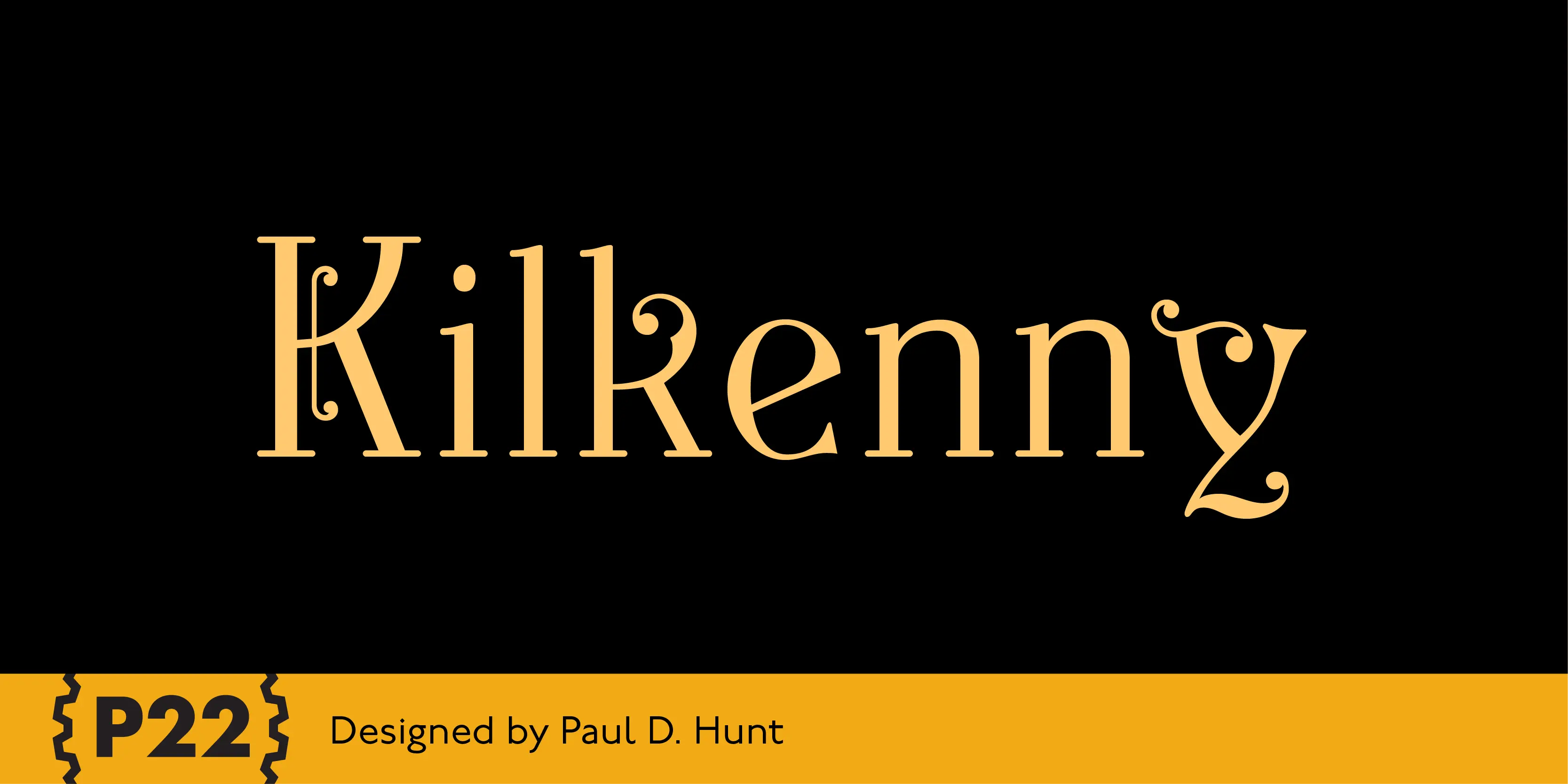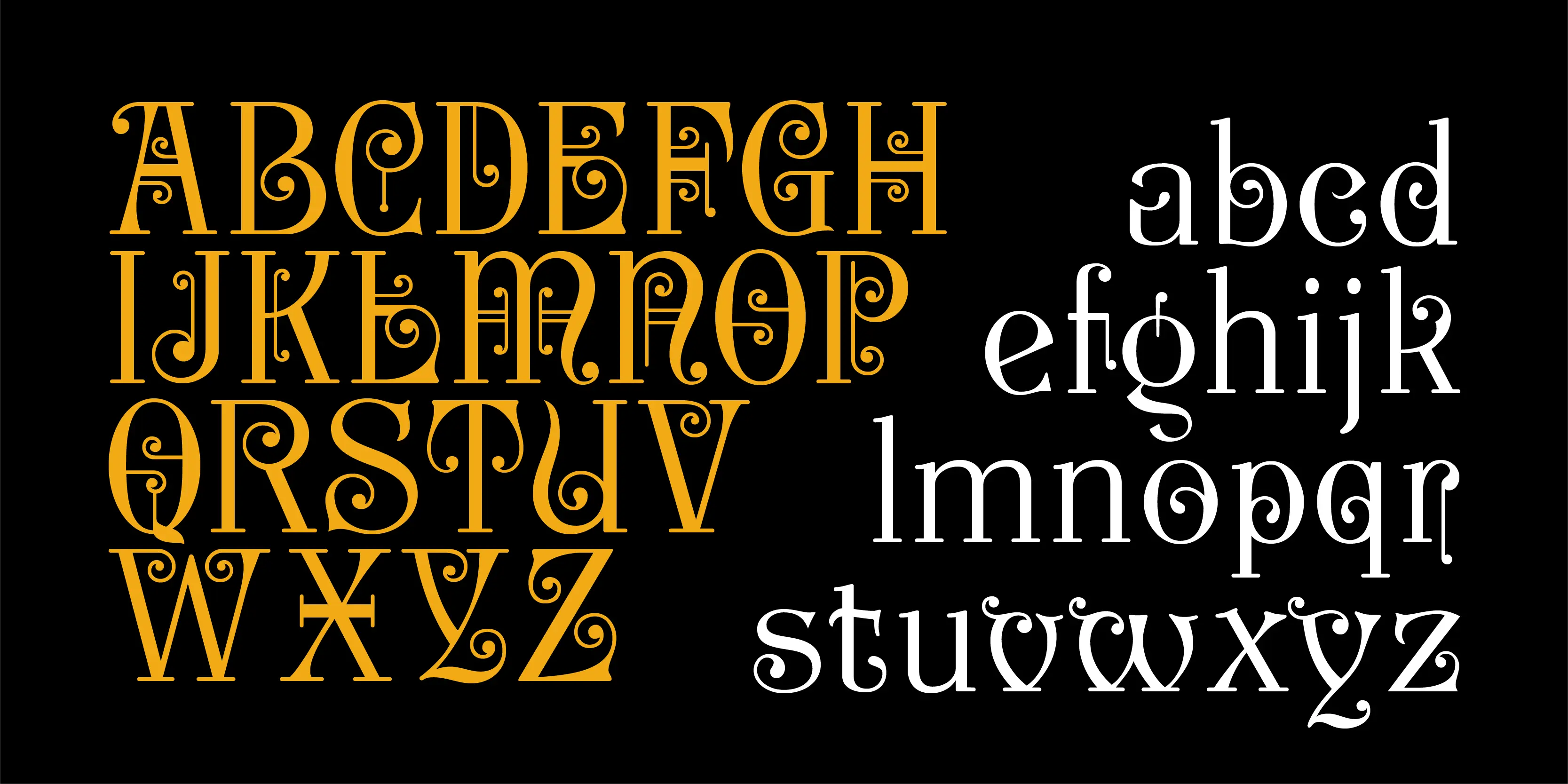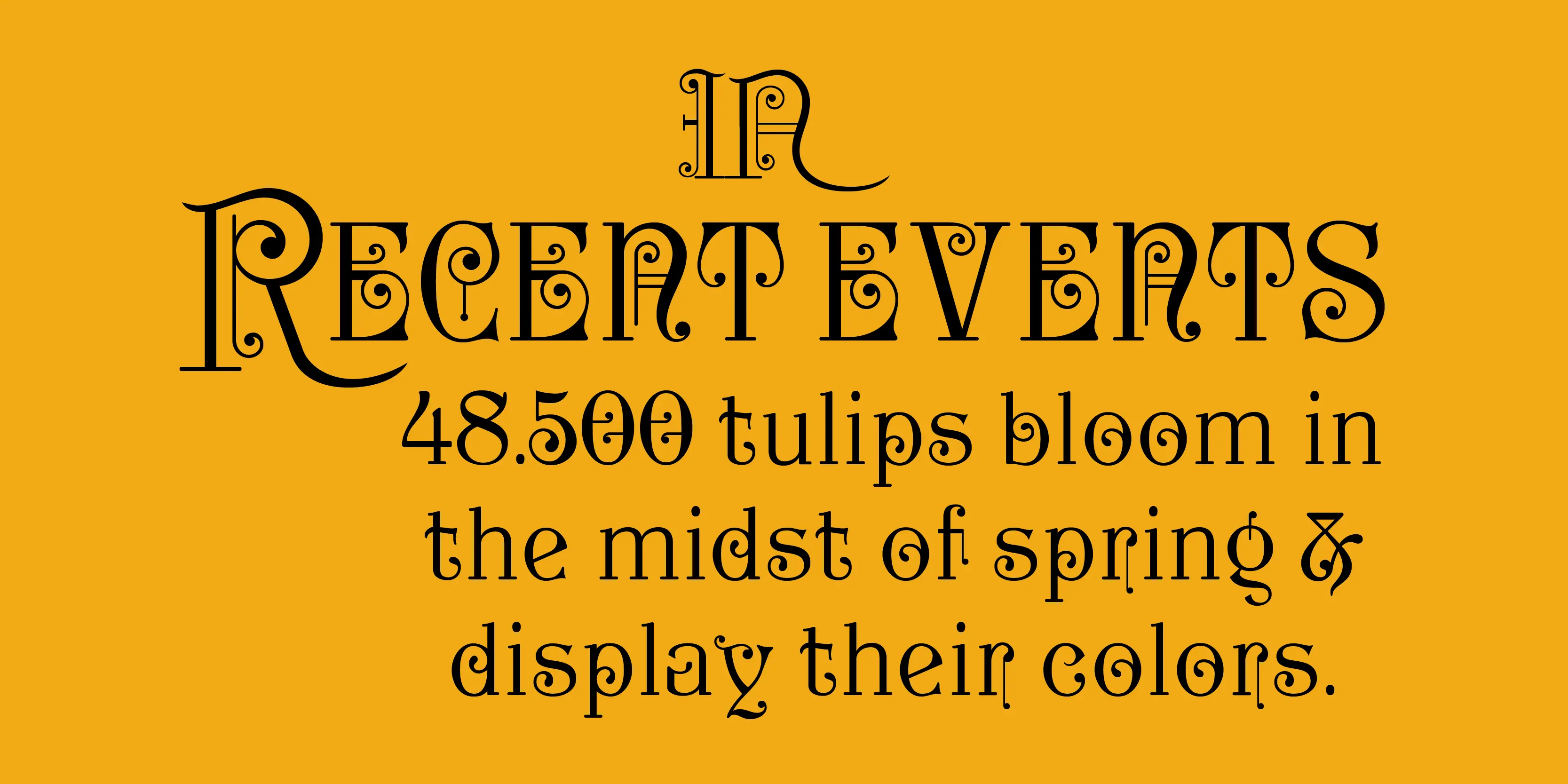
Kilkenny Font
Kilkenny
Kilkenny is a decorative, Victorian-style font based on the metal type named Nymphic that was designed by Hermann Ihlenberg. Ihlenburg was born in Germany in 1843 where he studied art and worked for several German type foundries. He moved to the USA in 1866 and worked for the L. Johnson & Co. foundry, later MacKellar, Smiths & Jordan. American Type Founders acquired this typeface when they took over the MacKellar, Smiths & Jordan foundry and Nymphic appears in the ATF catalog of 1896.
• Fractions
• Small Capitals
• Superscript
• Swashes
• Titling Capitals